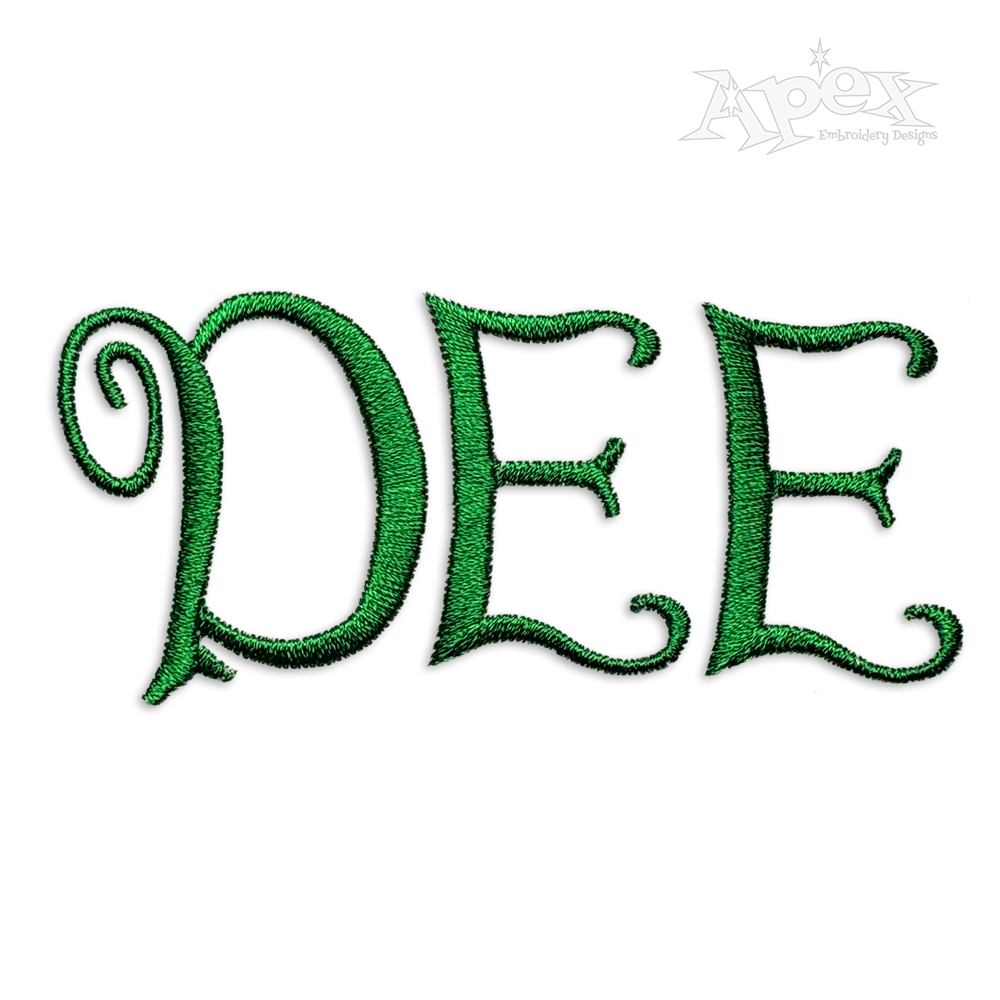
Squiggles Embroidery Font
There is a joyful, carefree rhythm to the Squiggles Embroidery Font that immediately brings fabric to life. Inspired by the expressive spontaneity of hand-drawn brush loops and contemporary boutique stationery, this alphabet captures kinetic movement with every stitch. Designed for creators who crave something fresh, modern, and delightfully unexpected, each uppercase character undulates with buoyant curves and rounded terminals. As the needle glides across your hoop, the fluid contours transform everyday textiles into elevated statement pieces, radiating warmth, playful elegance, and bespoke charm.
This collection features a complete uppercase alphabet (A–Z) digitized across three versatile scales, each meticulously calibrated to ensure crisp stitch formation and balanced proportions:
- 2-Inch Letters: Ideal for delicate accent monograms, pocket placements, small gift pouches, and children’s accessories.
- 3-Inch Letters: A classic scale perfectly proportioned for casual apparel, luxury bath linens, and everyday totes.
- 4-Inch Letters: Bold, expressive, and eye-catching for statement cushion covers, beach bags, and oversized outerwear initials.
Project Ideas for Squiggles Embroidery Font
- Bespoke Resort Wear: Stitch playful single-initial monograms onto the chest pockets of linen cabana shirts, sun hats, or lightweight beach cover-ups.
- Heirloom Children's Apparel: Personalize chunky knit cardigans, cotton rompers, and school daypacks with a youthful, artistic flair.
- Chic Table Linens: Embroider cocktail napkins and placemats with spirited initials for summer dinner parties or celebratory brunches.
- Personalized Gifting: Create custom canvas zipper pouches, makeup kits, and tote bags for bridal party packages or birthday surprises.
- Cozy Living Accents: Use the 4-inch size to create striking monogrammed lumbar pillows, fleece stadium blankets, or festive holiday stockings.
- Center Chest: Place the 3-inch or 4-inch letters centered between the collarbone and mid-torso on sweatshirts or knitwear for a confident, graphic statement.
- Corner Diagonal: Angle an initial 45 degrees across the hem of linen cocktail napkins or the corner edge of a baby blanket for an effortless, artisanal feel.
- Upper Pocket Line: Center the 2-inch glyph just above the seam of a denim jacket or breast pocket to add a whimsical pop of personalization.
- Right or Left Cuff: Position a single 2-inch letter on the outer edge of a long-sleeve cuff for a subtle, designer-inspired detail.
Squiggles Embroidery Font Craft & Letterform Details
Digitizing an undulating, freeform letterform requires meticulous attention to stitch mechanics. Curves that appear effortless to the eye can easily create puckering or thread bulk if not expertly mapped. In the Squiggles Embroidery Font, every bend, arc, and loop has been engineered with dynamic satin stitch angle transitions that glide smoothly around turns, preventing heavy thread buildup and preserving fabric drape.
Subtle pull-compensation has been built into every stroke to maintain the organic, rounded geometry across woven linens, textured terry cloths, and supple knits alike. The uniform, ribbon-like satin paths feature intentional variations in stitch direction, catching ambient light from multiple angles to create a luminous, handcrafted texture. The result is a vibrant satin stitch alphabet that stitches out with velvety smoothness, crisp edge definition, and unmistakable artisanal charm.